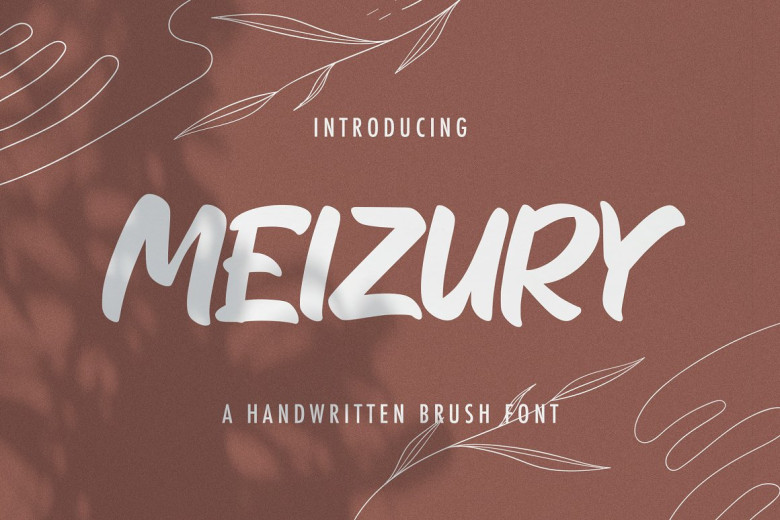
MEIZURY Font
MEIZURY is an elegant handwritten font. With soft flowing strokes and well-balanced characters, MEIZURY blends in effortlessly with any style or genre imaginable – use it in your creative concepts to see them come to life!
MEIZURY Brush Font